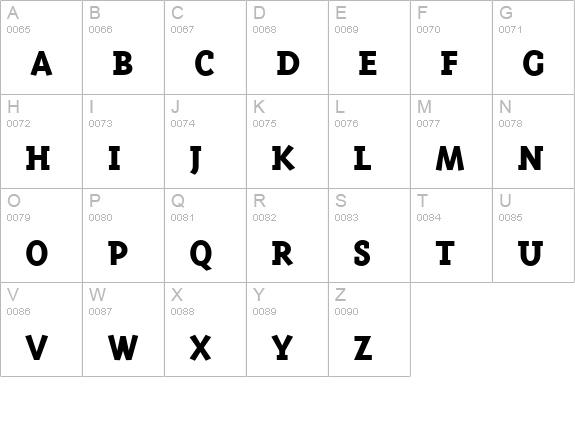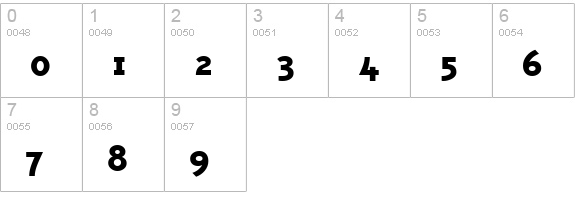
TriplexSerifExtraBoldOldstyle Bold is a strong, high-contrast variant in the TriplexSerifExtraBoldOldstyle typeface family \xE2\x80\x94 well suited to headlines, attention-grabbing titles, and strong calls-to-action.
TriplexSerifExtraBoldOldstyle Bold font is a visually striking typeface that exudes confidence and strength. With its bold and commanding presence, this font is perfect for capturing attention and making a bold statement. The timeless elegance of TriplexSerifExtraBoldOldstyle Bold font is combined with a touch of old-world charm, creating a unique and sophisticated aesthetic. The carefully designed letterforms bring a sense of classic beauty to any project, whether it be a logo, headline, or body text. This versatile font is incredibly flexible, making it suitable for a wide range of design purposes. Its bold weight ensures excellent legibility, even at smaller sizes, while its distinctive serifs add a touch of refinement and elegance. And the best part? TriplexSerifExtraBoldOldstyle Bold font is available for free download at FontsMarket.com. This means you can easily access and use this stunning font without any cost. Whether you're a professional designer or a hobbyist, this free font offers endless possibilities to elevate your designs and create something truly remarkable. So why wait? Experience the power and beauty of TriplexSerifExtraBoldOldstyle Bold font for yourself by downloading it for free at FontsMarket.com. Let this font be your secret weapon in captivating your audience and leaving a lasting impression.